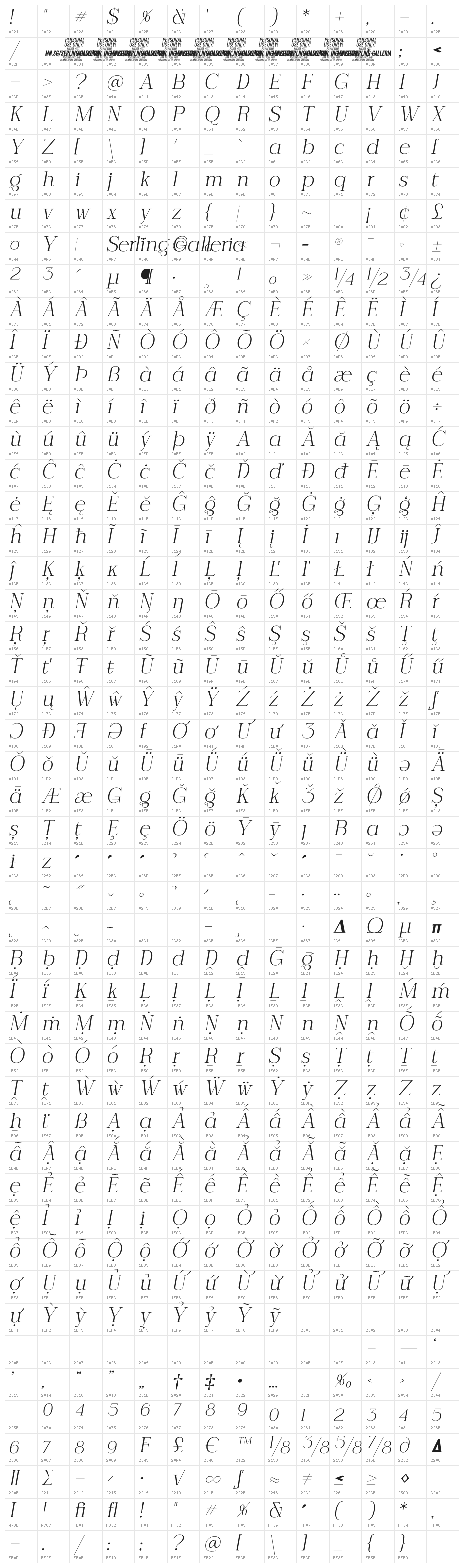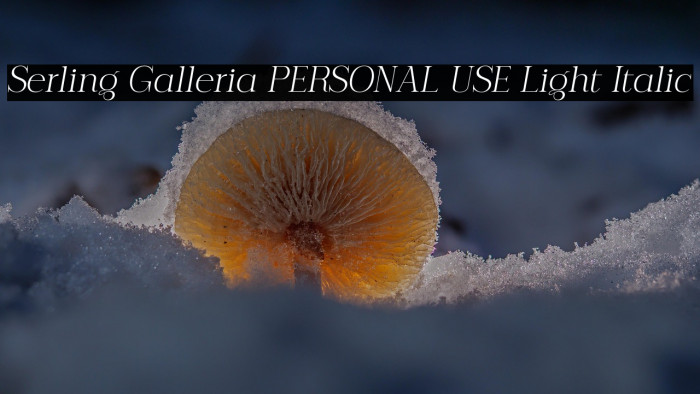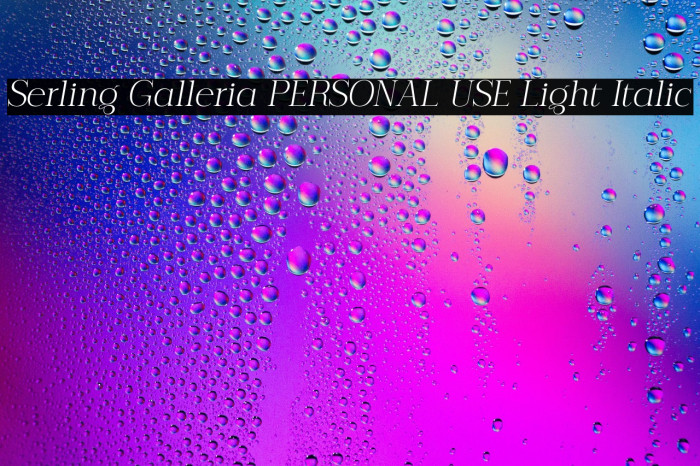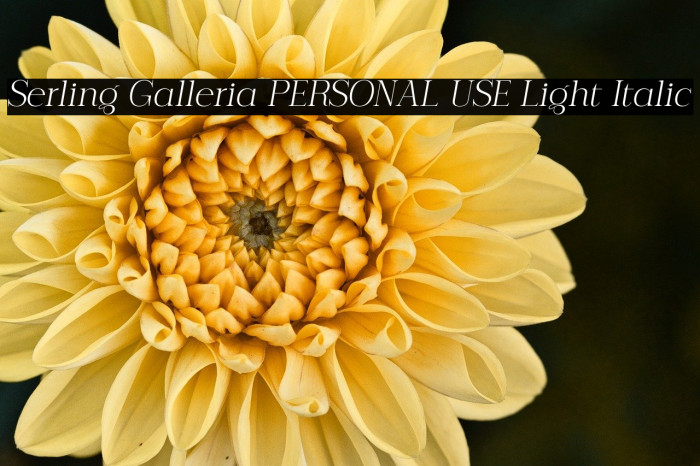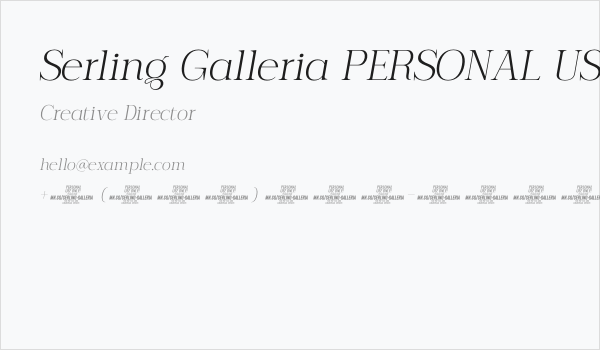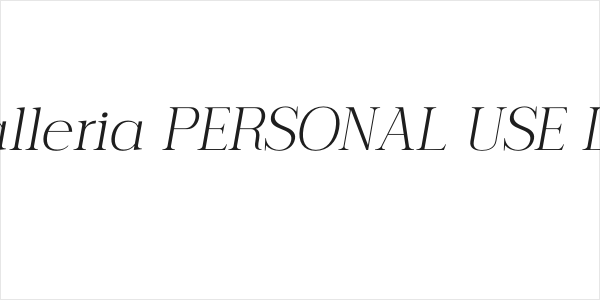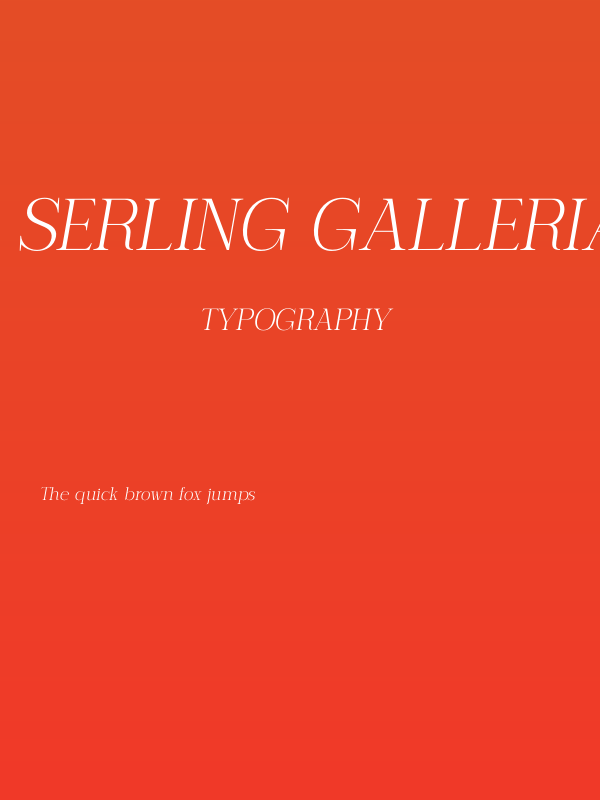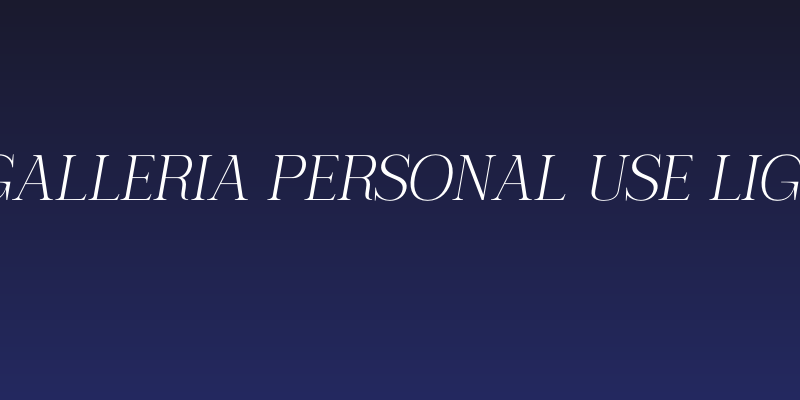
Serling Galleria PERSONAL USE Light Italic Font
Serling Galleria PERSONAL USE Light Italic Description
This elegant typeface features a refined and sophisticated design, characterized by its light weight and italic style. The letters exhibit a graceful slant, enhancing the font's fluidity and dynamic appearance. The strokes are delicate yet distinct, with a moderate contrast that adds to its readability and charm. The serif elements are subtle, providing a classic touch without overwhelming the overall aesthetic. This font is versatile, suitable for both formal and creative applications, offering a timeless appeal that can elevate any design project.